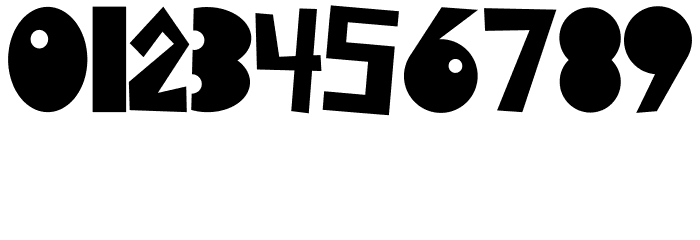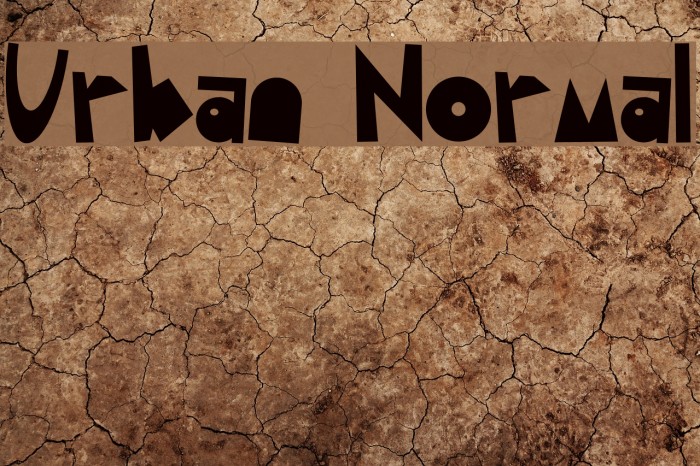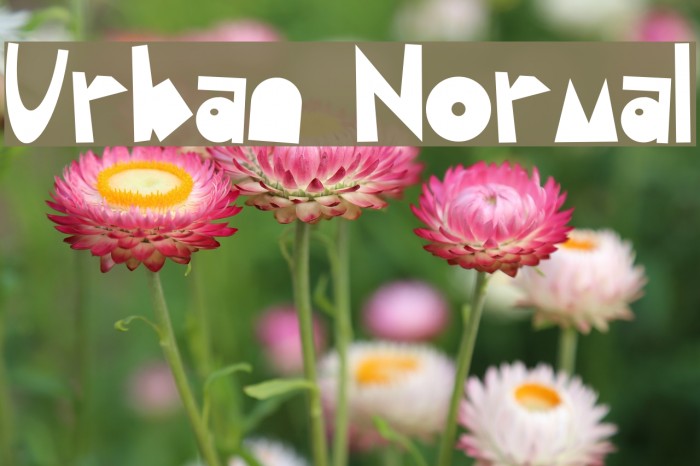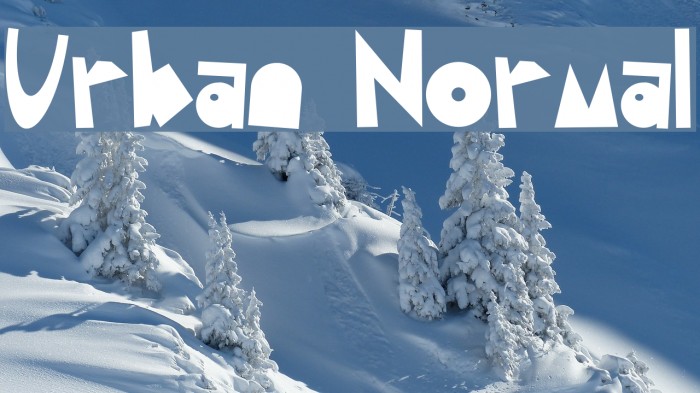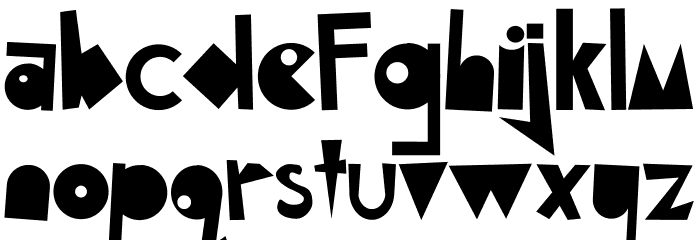
Urban Normal Font
Urban Normal Description
This font features a bold, playful design with a distinctly urban flair. The characters are highly stylized, with exaggerated geometric shapes and varying stroke thicknesses that create a dynamic and energetic appearance. The uppercase letters are particularly striking, with sharp angles and unique forms that make each character stand out. The lowercase letters maintain this playful aesthetic, while the numbers and special characters continue the theme with bold, eye-catching designs. Overall, this font exudes a sense of creativity and modernity, making it ideal for projects that require a bold and unconventional look.
| Use Case | Logos, Posters, Album Covers |
| Proposed Projects | Ideal for street art designs, music album covers, urban-themed posters, and creative branding projects. |